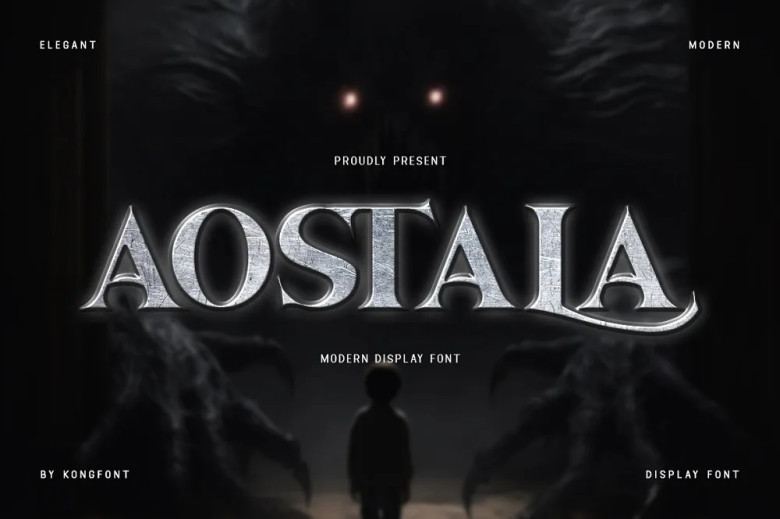
Aostala Font
Aostala is absolutely new and clean serif font which is available under the production of Kong Font. This is the aspect that can be seen to distinguish this font from other serif fonts. Aostala gives a plain impression and has a rather decomposition and soft looking serif. This font is considered to be edgy and charismatic in terms of aggressiveness. Such characters make the Aostala among some of the best fonts that have higher compatibility with the branding of beauty products.
Aostala Font styles can be used on the packaging of the products, posters, advertisements, magazines, and so on. These font types are ideal to be used in digital formats and the print instructions must also follow the right font size because of the readability of the font types that have been employed.